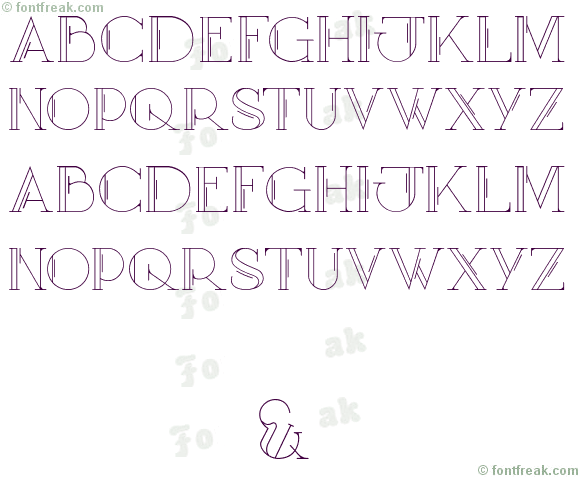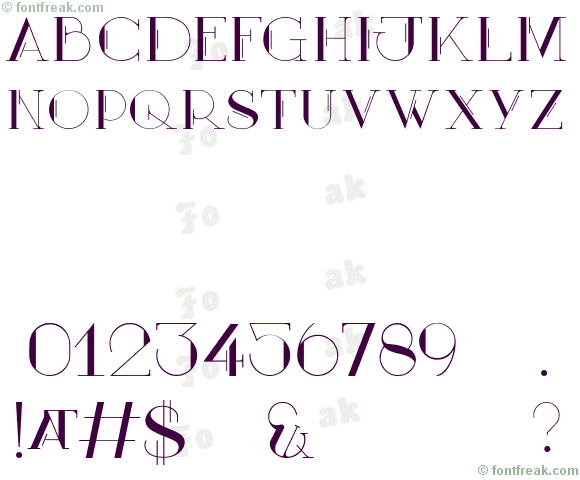
Mary [CAPS] Outline
About Mary [CAPS] Outline
Introducing the Mary [CAPS] Outline font by Fie Clarke, a striking display typeface that combines elegance with a contemporary flair. This font falls into the decorative category, characterized by its bold outline style that captures attention and adds a unique touch to various design projects. The strokes are well-defined and consistent, creating a balanced visual appeal that stands out without overwhelming the viewer. The open letterforms and generous spacing enhance readability, making it suitable for both print and digital mediums.
The Mary [CAPS] Outline font is perfect for a variety of creative applications. It shines in wedding invitations, where its stylish outline can elevate the overall aesthetic, giving a sophisticated yet approachable feel. This font is also ideal for movie posters, lending a dynamic energy that draws in viewers. Restaurant menus can benefit from its distinctive look, making dish descriptions pop and enticing customers to explore the offerings. Additionally, it serves well in branding projects, allowing small business owners to create memorable logos that reflect their unique identity.
Targeted towards graphic designers, small business owners, and content creators, this font provides an excellent option for those looking to make a statement. The Mary [CAPS] Outline font free download is an attractive choice for creatives seeking to enhance their projects without the burden of licensing fees for personal use.
What sets the Mary [CAPS] Outline font apart is its versatility combined with its artistic flair. It can seamlessly transition from whimsical to professional, making it an essential addition to any designer's toolkit. With its unique style and practical applications, this font stands out in the crowded digital landscape, inviting users to explore its full potential.